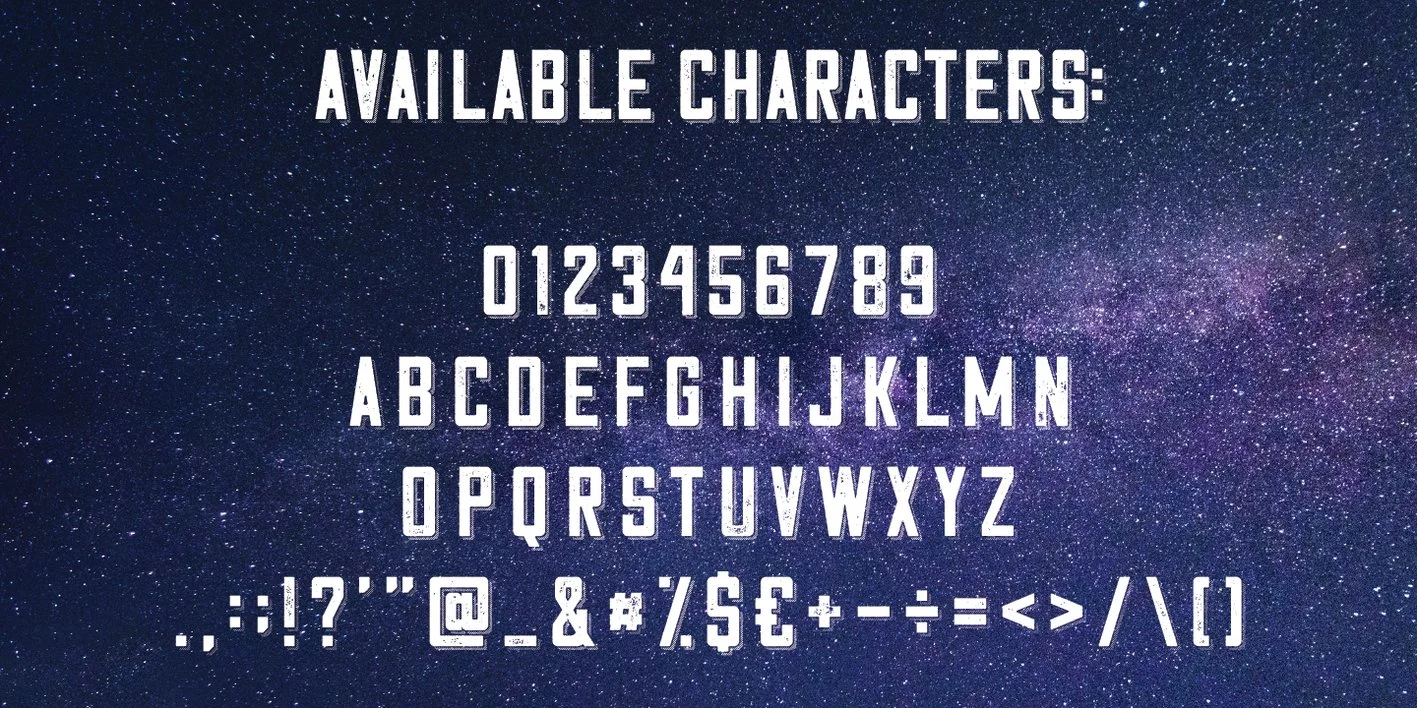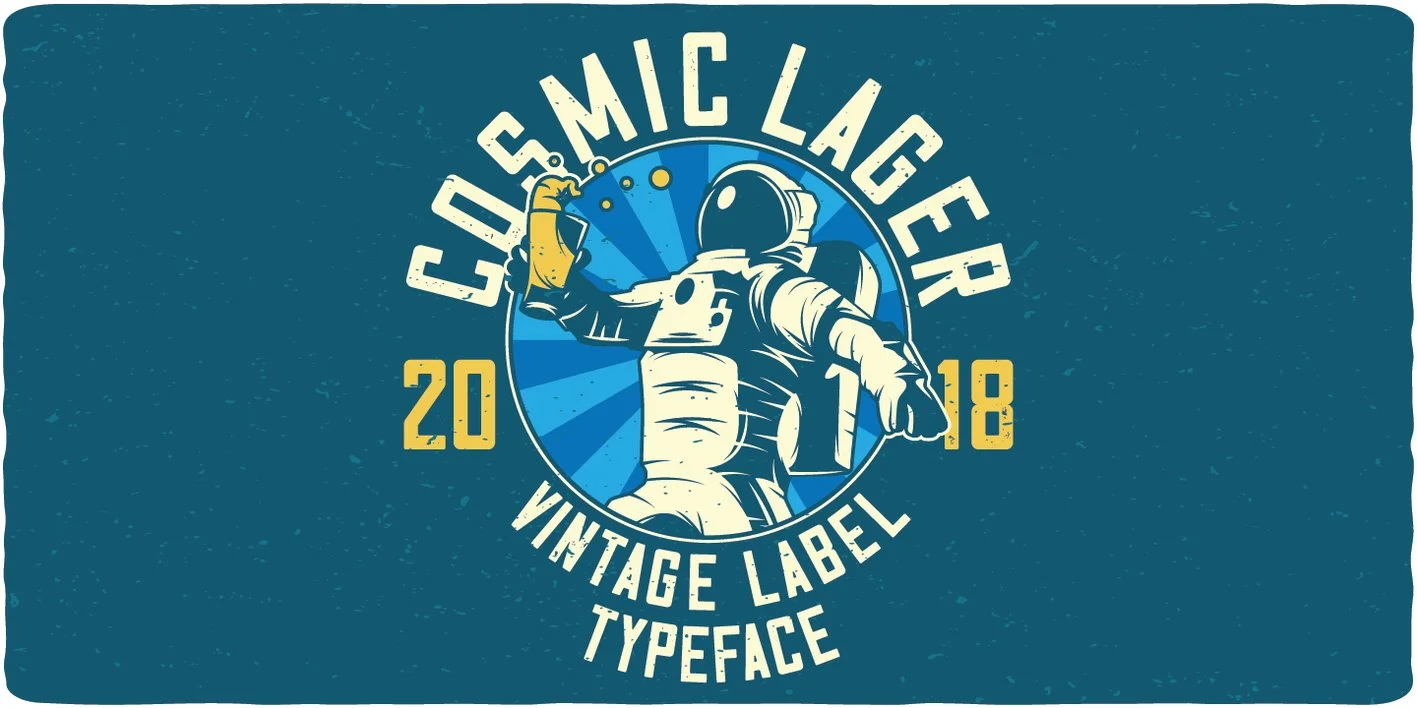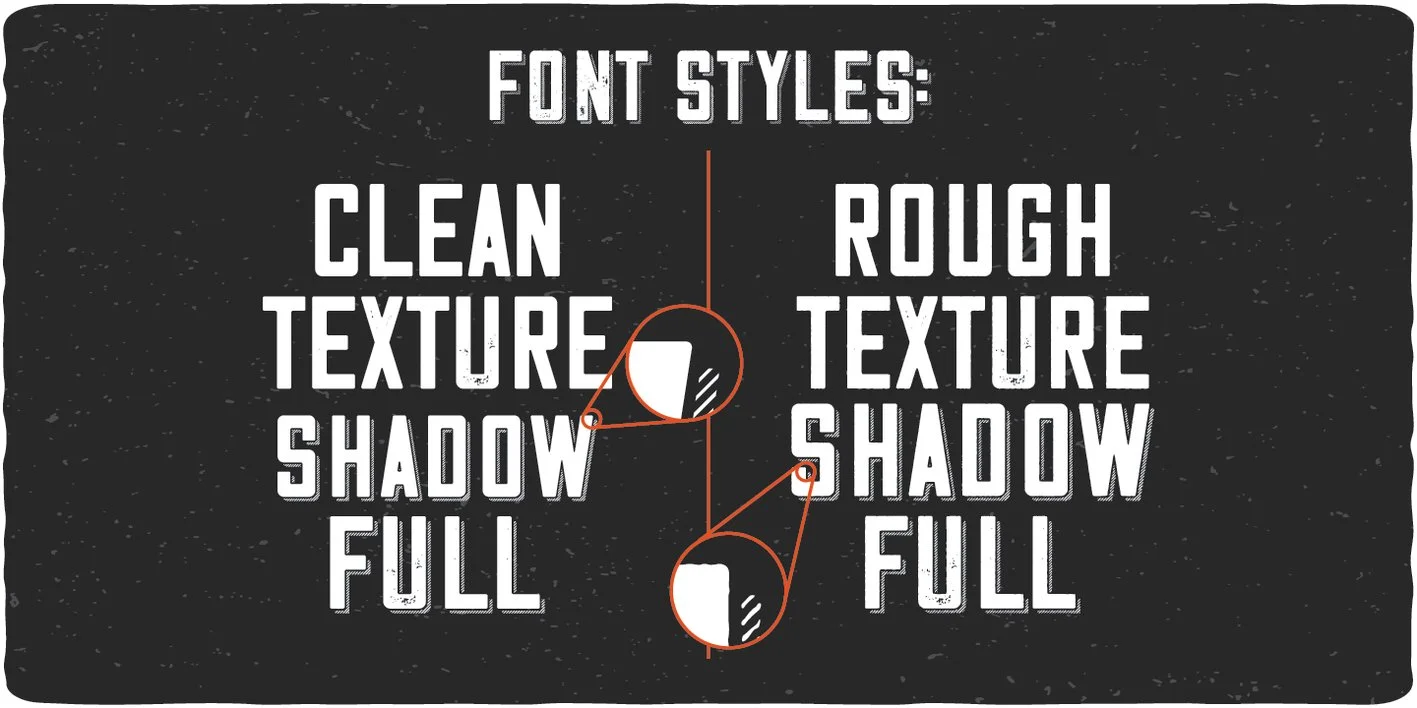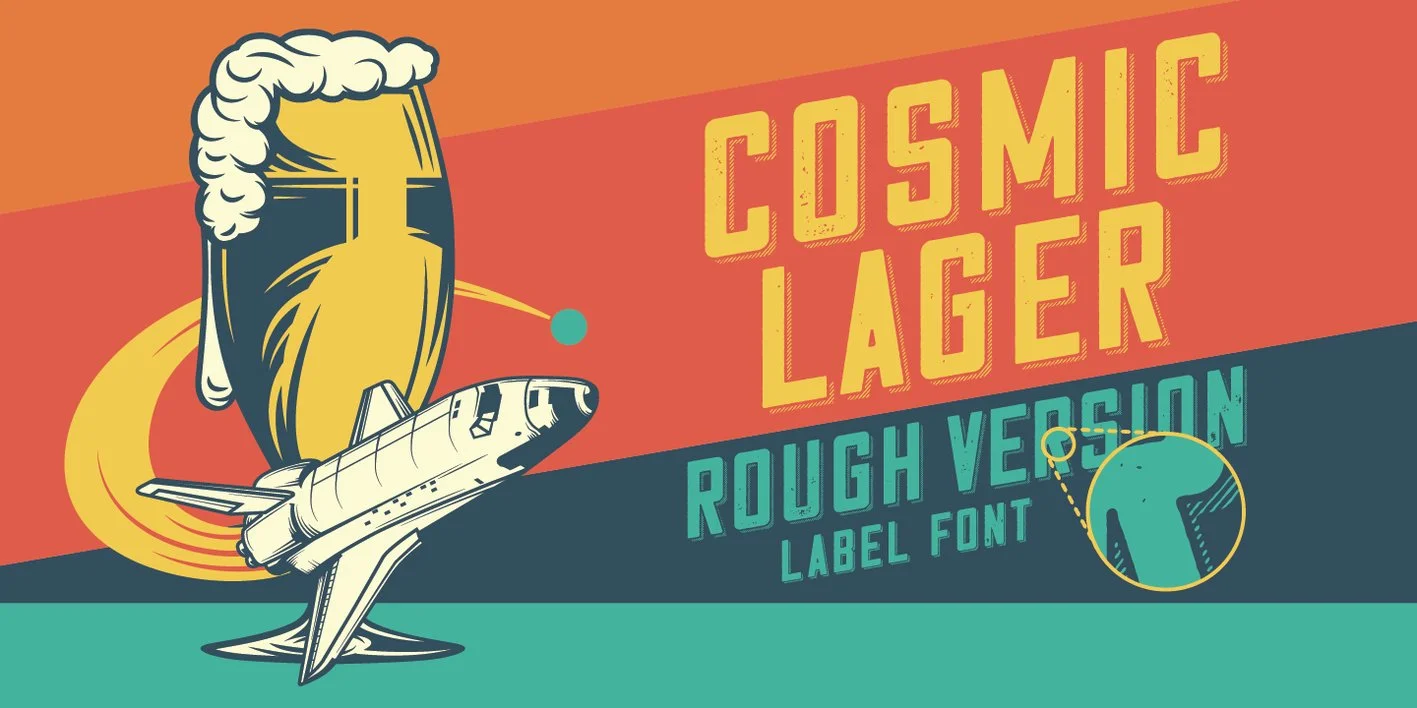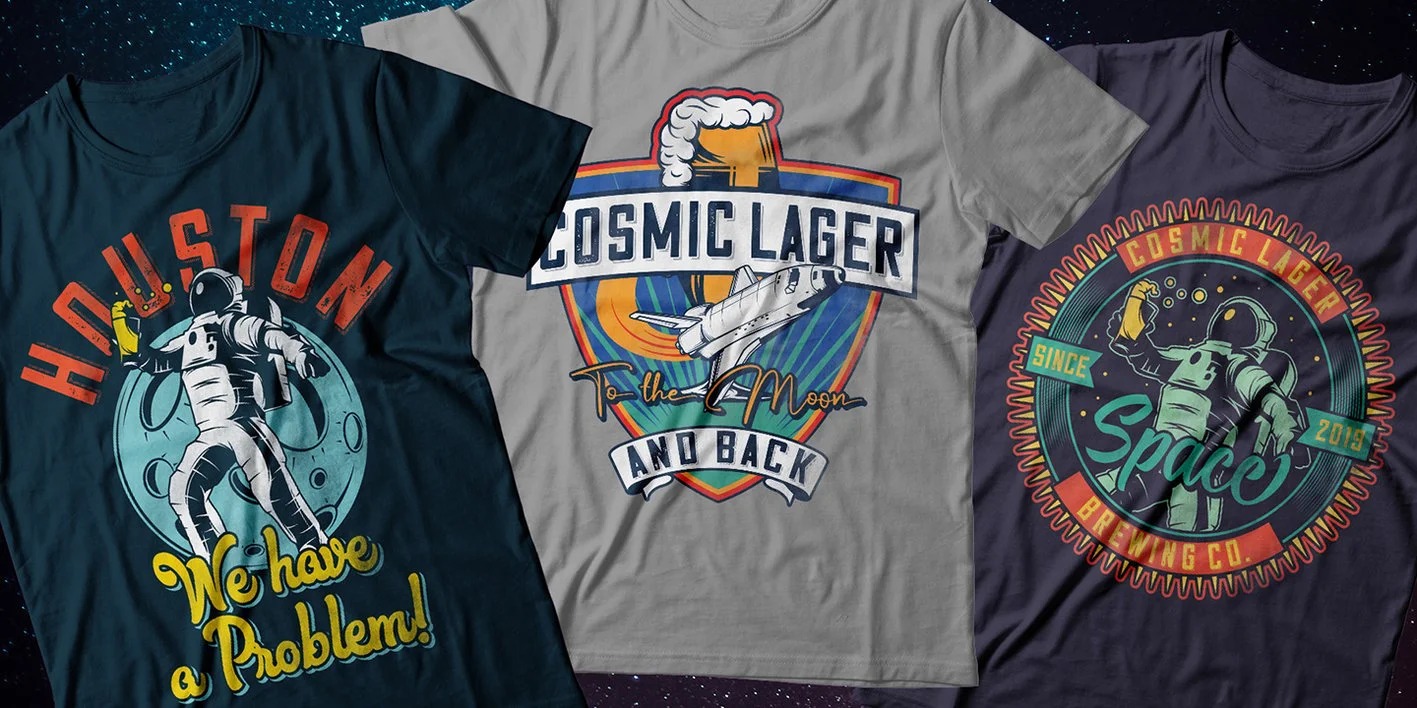
Cosmic Lager Font
Few typefaces manage to balance visual harmony and precise spacing with genuine day-to-day practicality. Cosmic Lager is one of them. The typeface brings a versatile sensibility to a broad range of creative disciplines, with refined proportions and careful stroke modulation that holds up whether the work is print-first or screen-first.
In practice, Cosmic Lager proves particularly effective for advertising campaigns, editorial layouts, environmental graphics, brand identity systems, web design. Designers reaching for it find that the type decisions feel resolved rather than laboured — a useful quality when client timelines are tight.
The range of applications extends to annual reports, product labels, social media graphics, poster creation. That breadth is deliberate: the proportions and spacing were stress-tested across a wide range of mock briefs before the typeface was finalised.
At smaller sizes the design retains its character without becoming cluttered. This resilience across scales makes Cosmic Lager equally suitable for a business card and a billboard — a useful property when assets must scale across a campaign.
Graphic designers working on identity systems find Cosmic Lager a reliable choice for projects that demand both personality and restraint. The design avoids the self-conscious quirkiness that dates quickly, settling instead for considered distinctiveness that holds up over time.